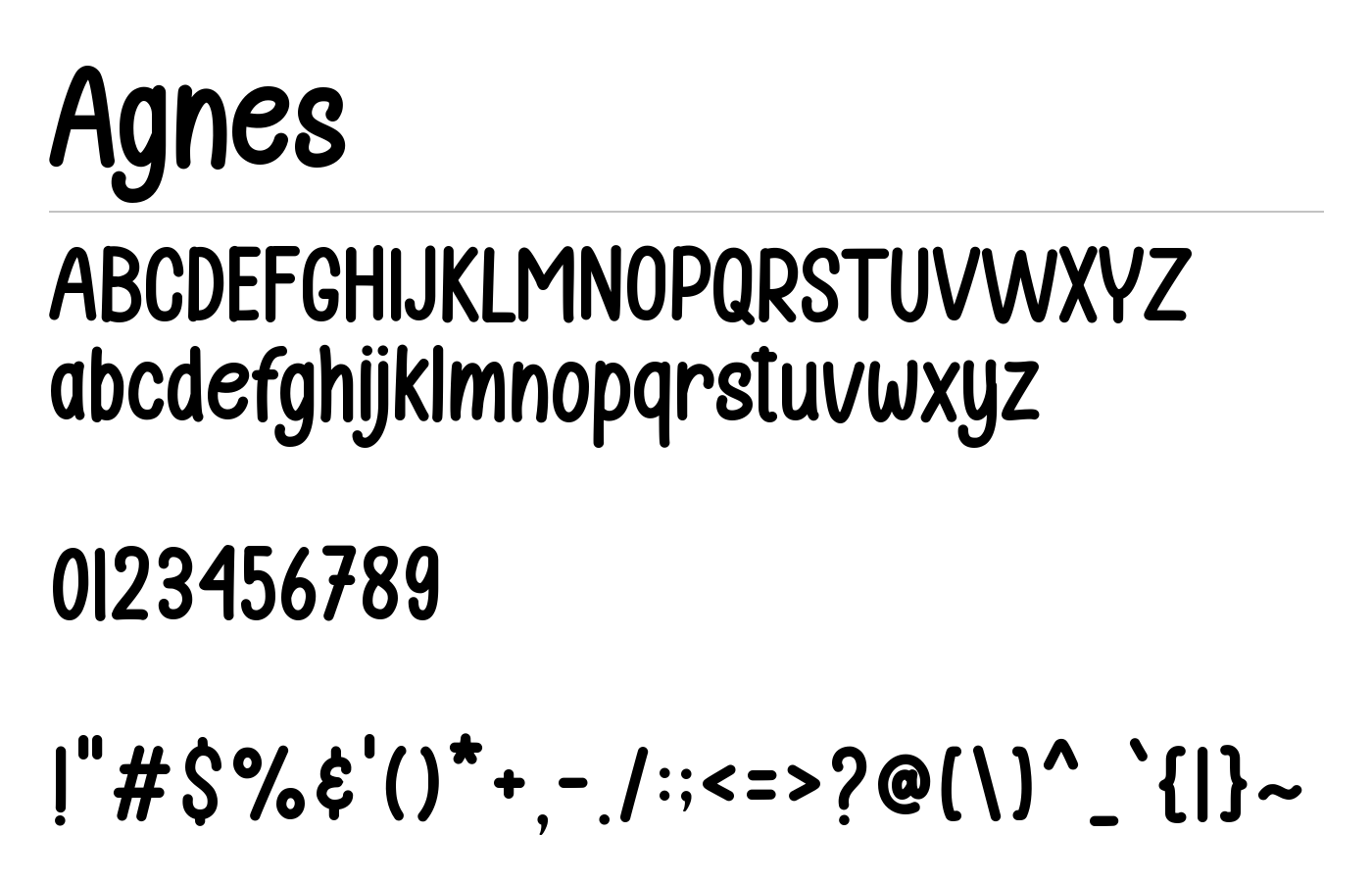
Agnes is a friendly and casual sans serif font with a handwritten feel, characterized by its rounded, slightly irregular letterforms and medium weight. Its tall x-height and clear, open shapes make it very readable and approachable, ideal for playful, informal branding or creative projects that want to convey warmth and personality. This font works well in children's books, casual logos, and fun editorial designs where a lively and charming tone is desired.
Agnes Font
About Agnes Font